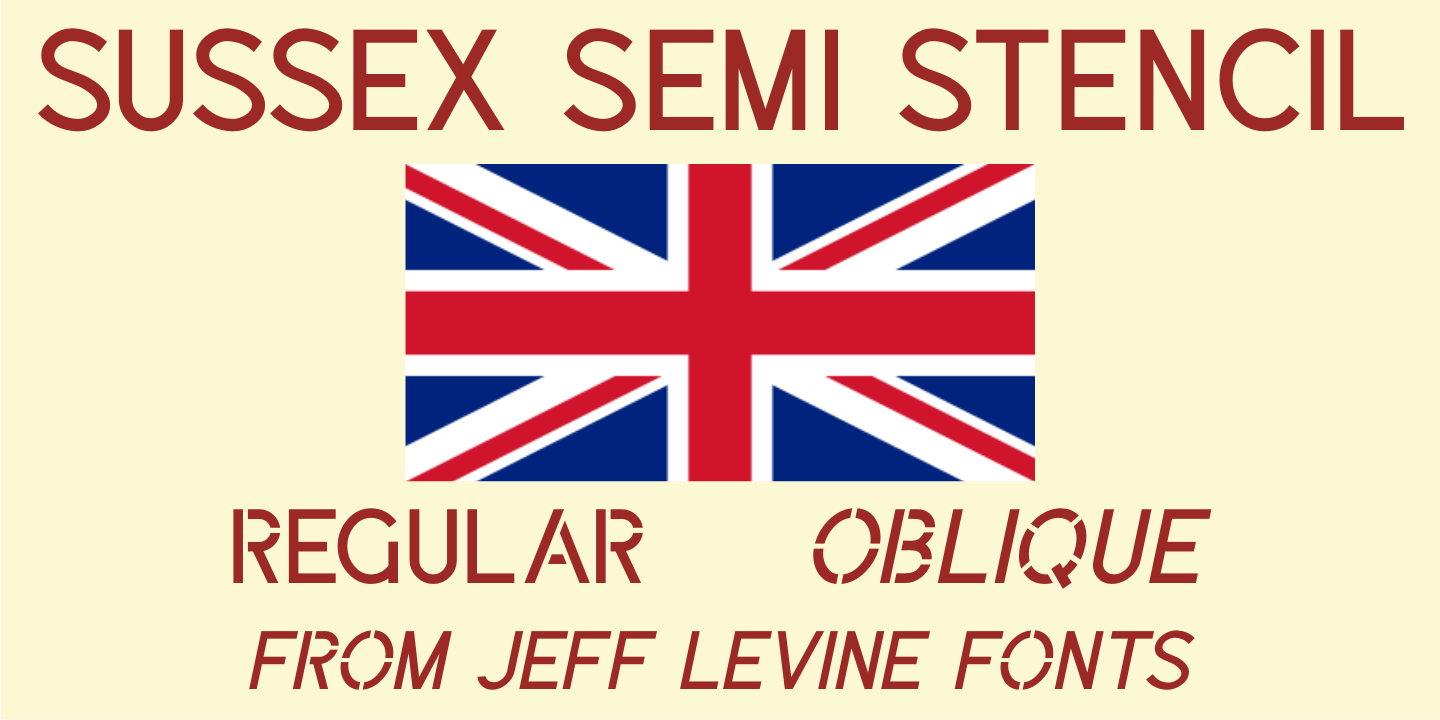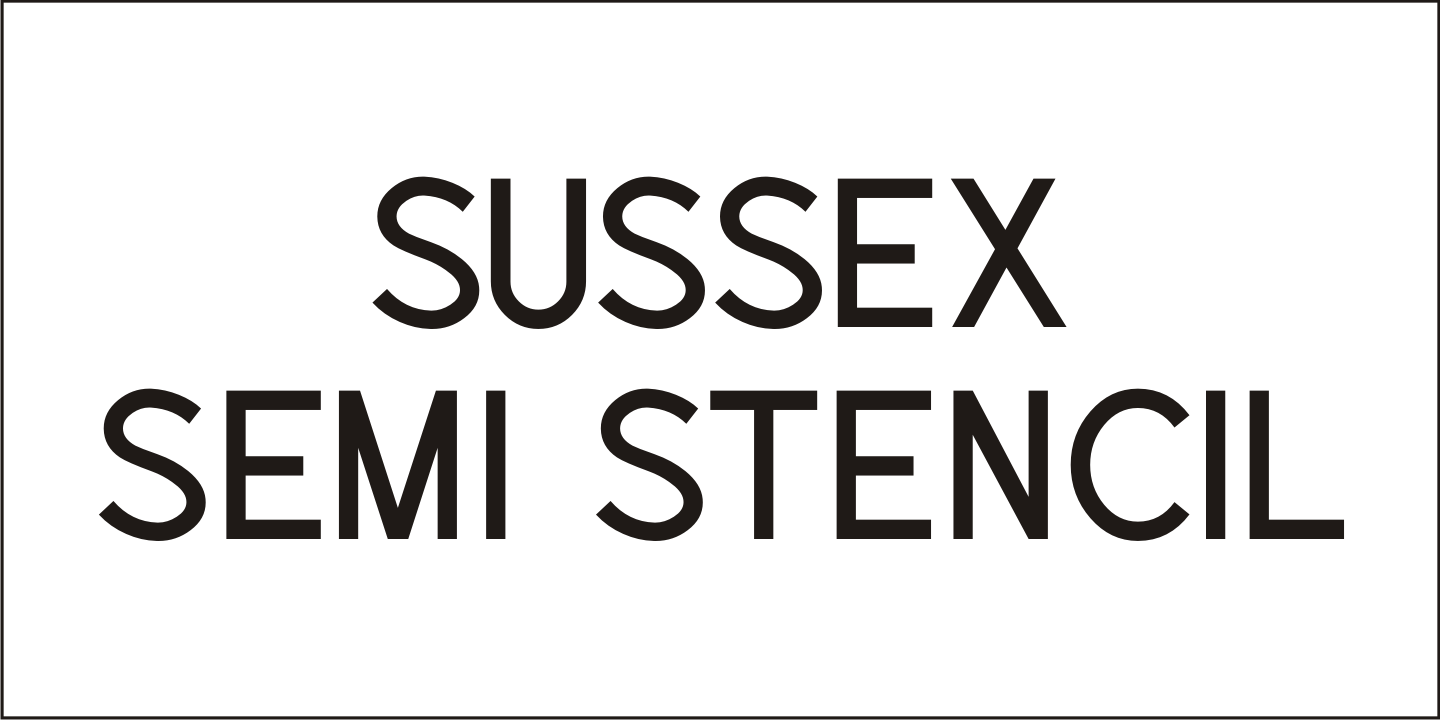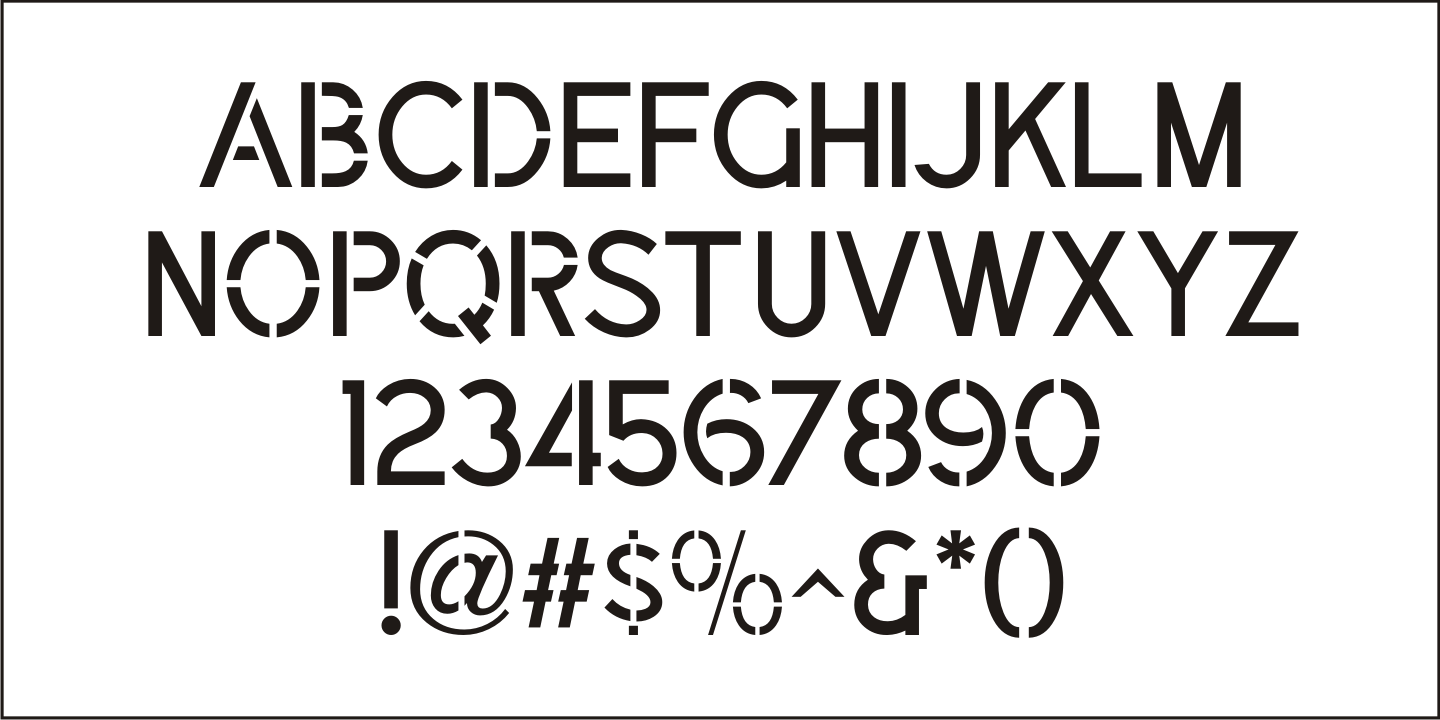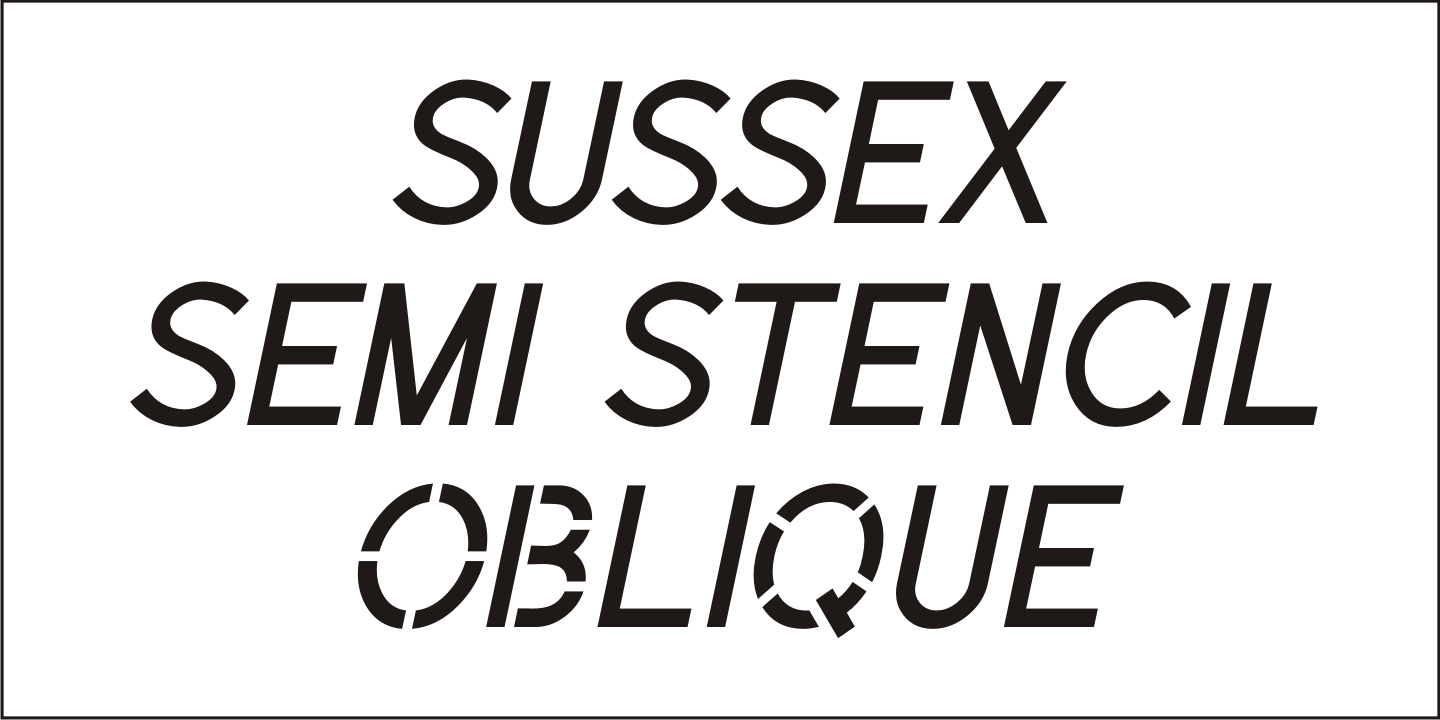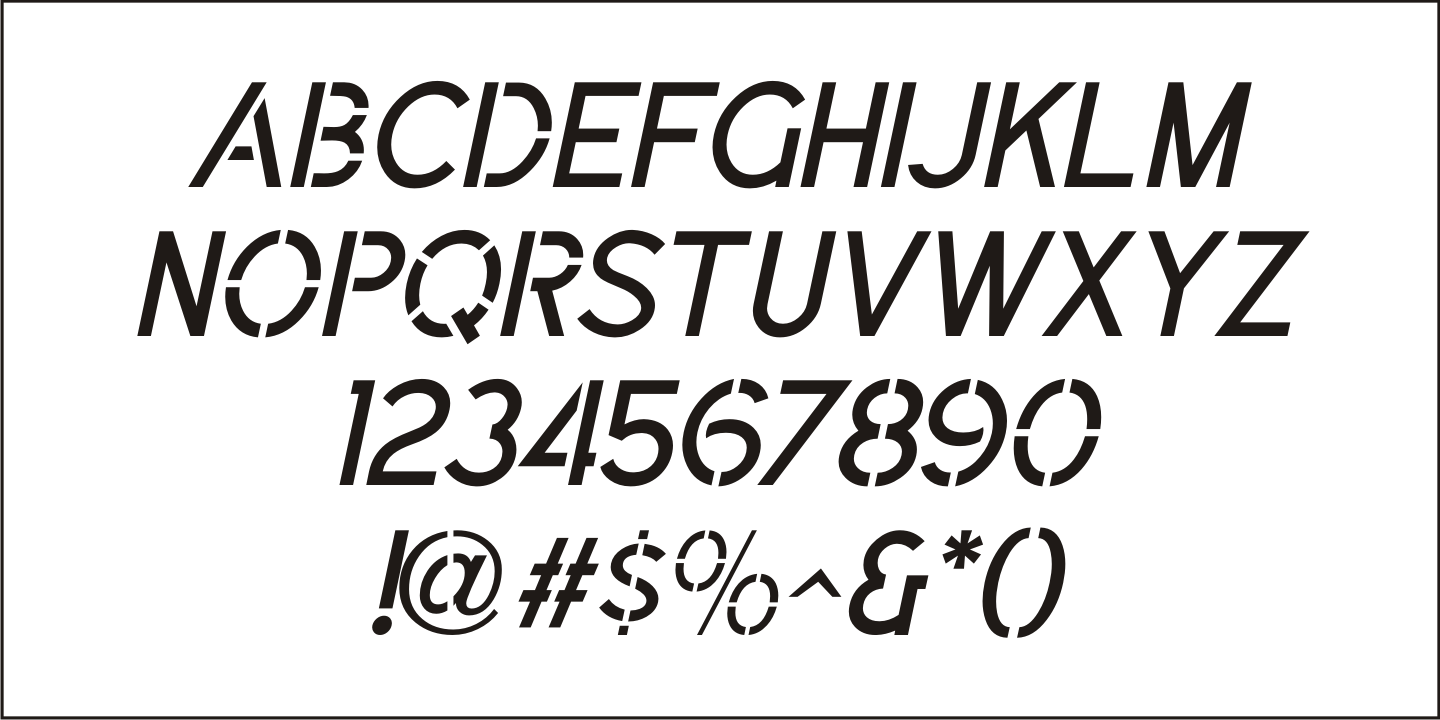
Sussex Semi Stencil
A set of oil board stencils from Great Britain (probably from the 1950s) was the model for Sussex Semi Stencil JNL, which is available in both regular and oblique versions.
Because many of the characters are 'solid' rather than containing the breaks [known as 'islands'] of a traditional stencil letter, this is why the type design was given the 'semi stencil' designation.